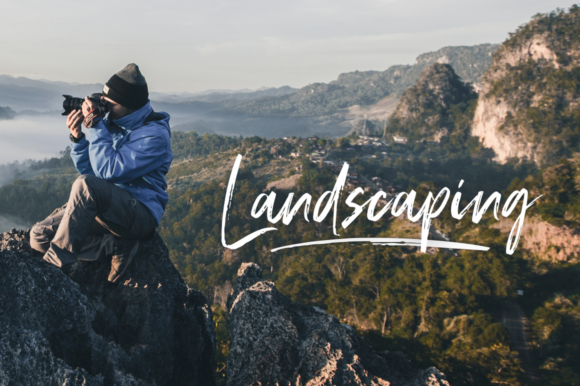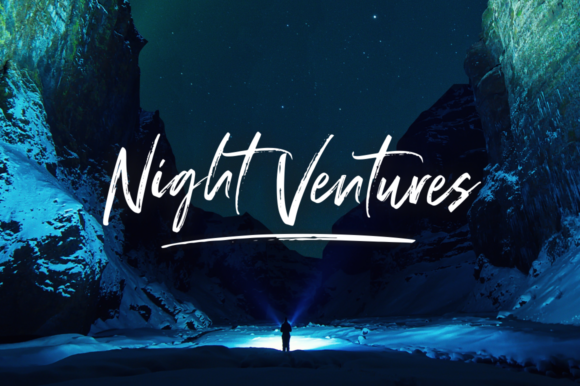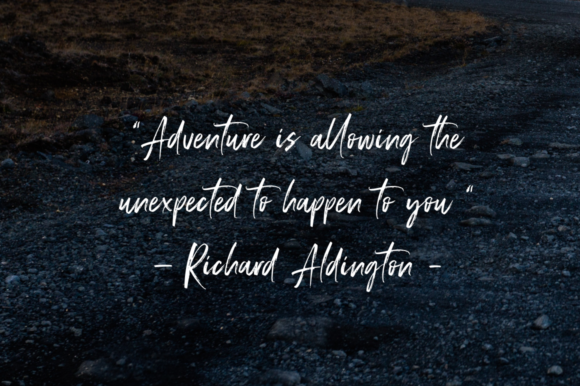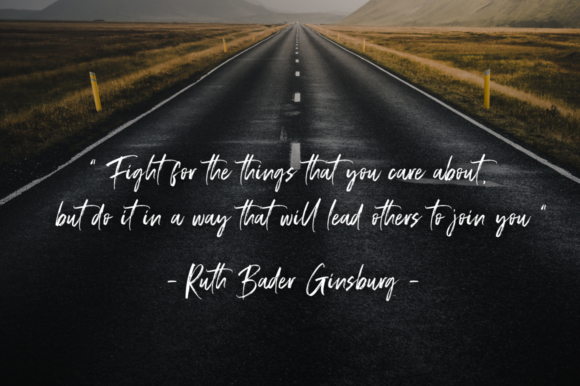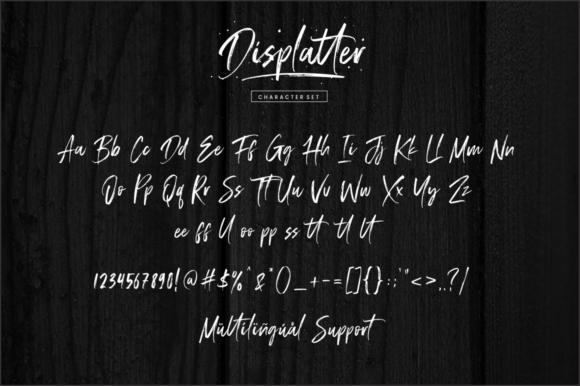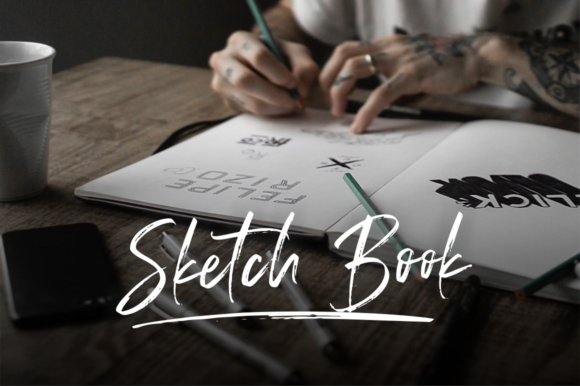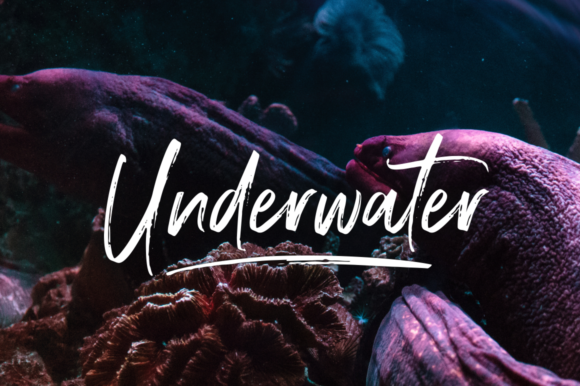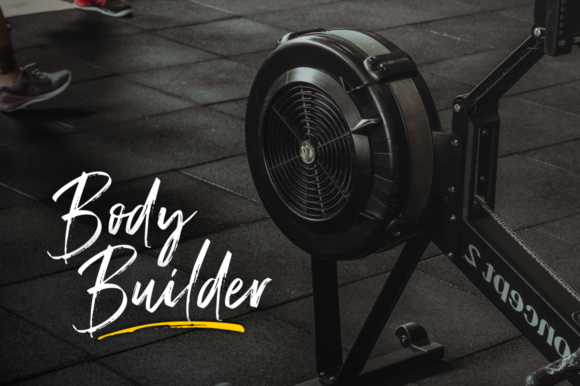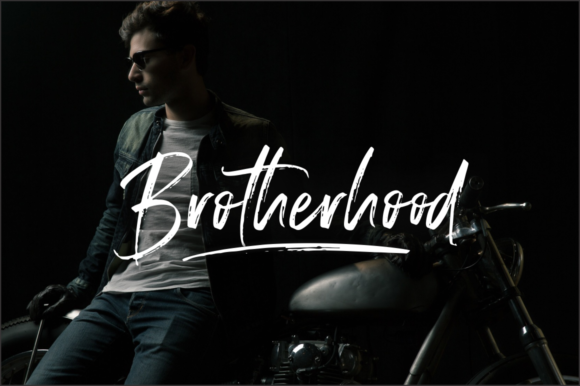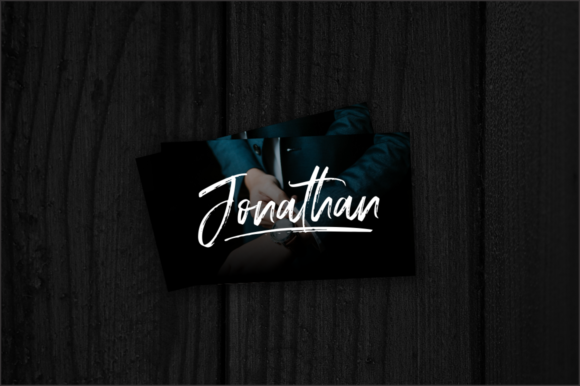
Displatter Font
About Displatter Font
A true eye-catcher, Displatter is a unique and bold handwritten font. It has a distinct modern feel and will add a touch of sophistication to any design idea.